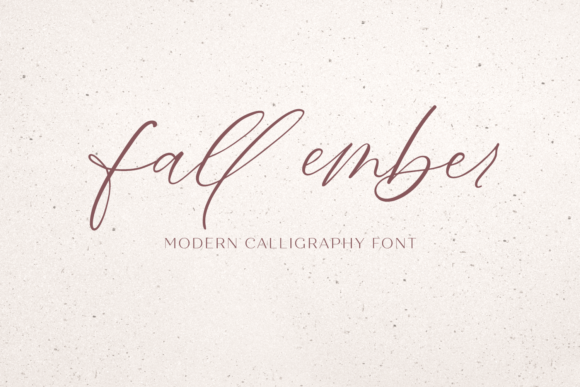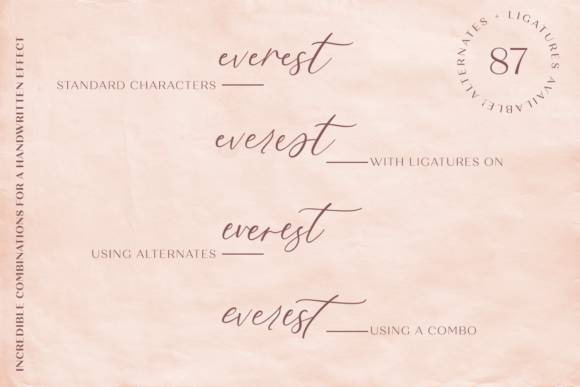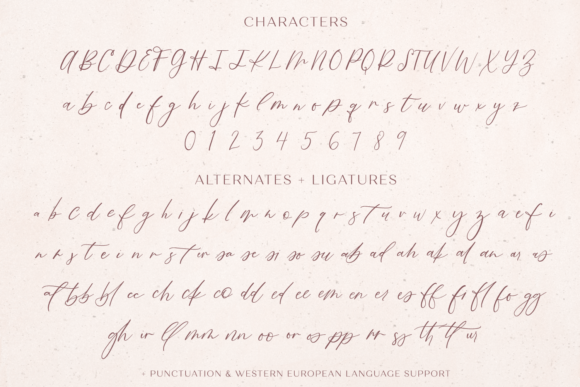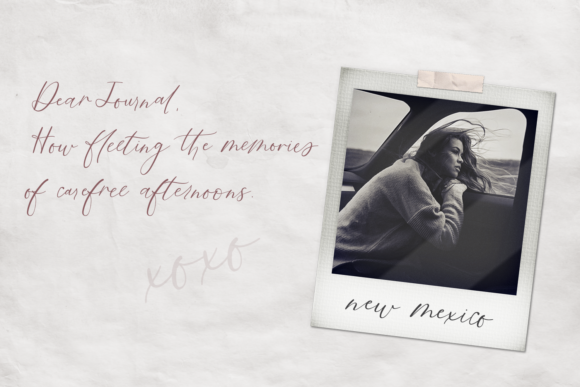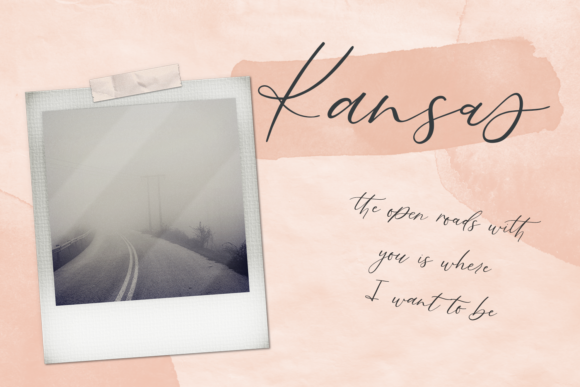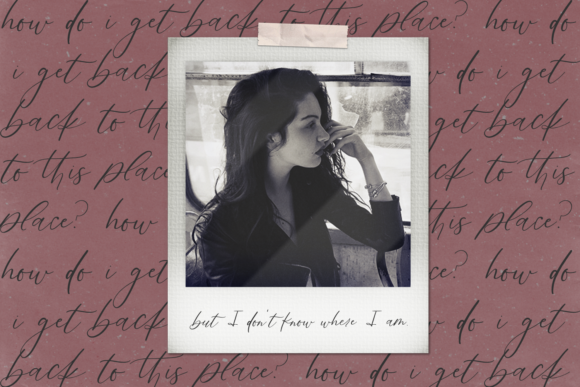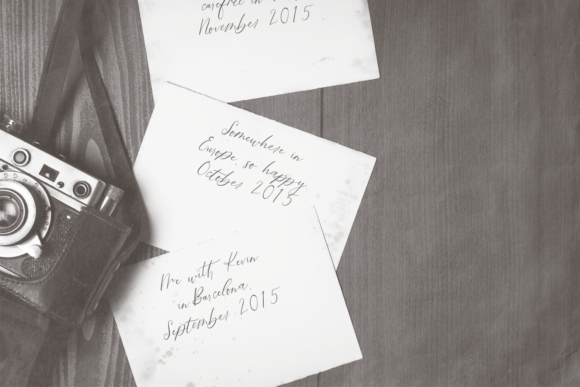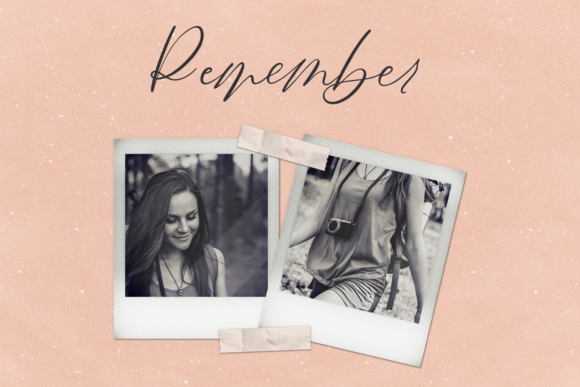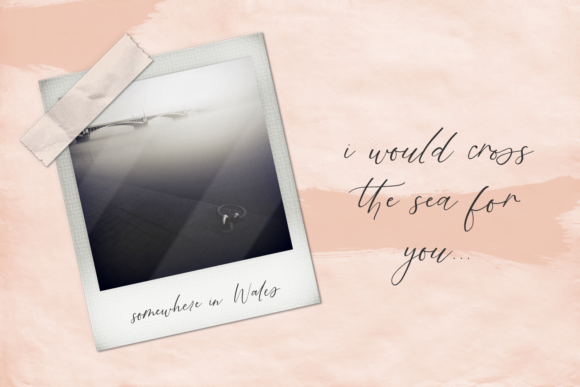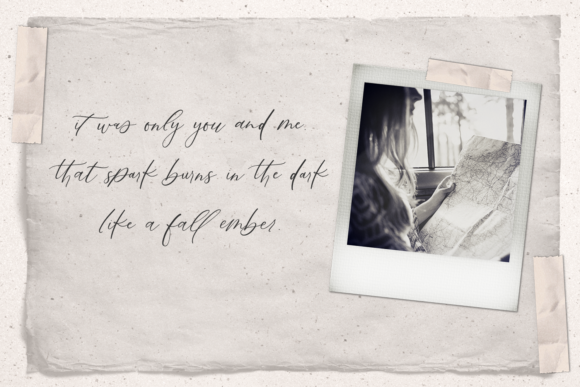
Fall Ember Font
About Fall Ember Font
Fall Ember is a naturally flowy and fun handwritten font with a bold feel. It’s a timeless and sophisticated script that will add an authentic flavor to any design project!